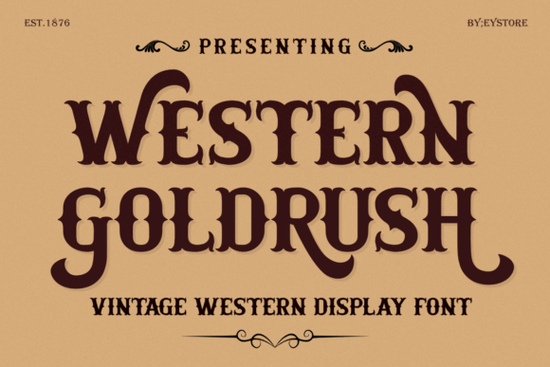
If you've been searching for a typeface that captures the spirit of the Old West, Western Goldrush is a bold vintage western display font that delivers exactly that. Inspired by classic cowboy typography, old saloon signage, and 19th-century American frontier aesthetics, it brings a rugged, masculine feel to any design. Whether you're working on a ranch logo, whiskey label, or retro poster, this font has the character to make your work stand out.
What Makes This Western Font Stand Out?
Western Goldrush features strong serif letterforms, decorative curves, dramatic swashes, and authentic western character details. It was designed to give a bold statement look without sacrificing readability something that's harder to find than you'd think in the display fonts category.
One thing worth noting: this font comes with multiple uppercase letter variations directly accessible without using alternate features. That means you don't need advanced software knowledge to switch between styles. It works smoothly in any design program, which is helpful if you're using basic tools or just getting started with custom typeface projects.
Who Is This Font Best For?
This typeface is a solid choice for a range of creatives and businesses:
- Barbershop and grooming brands looking for that classic masculine vibe
- Ranch and farm logos that need authentic western character
- Whiskey and craft beverage labels aiming for a vintage feel
- Saloon signage and themed events that want an old-west atmosphere
- Print-on-demand sellers creating western apparel and merchandise
- Tattoo artists looking for bold, readable western lettering
- Small businesses building a rustic or Americana brand identity
If you're a crafter or designer who works with vintage themes regularly, this is the kind of typeface you'll reach for again and again.
What Design Projects Work Well With This Typeface?
Western Goldrush is versatile across a range of western-themed projects. Here are some specific uses:
- Badge-style logos and emblems
- Headline typography for posters and flyers
- Vintage packaging and retro product labels
- Western apparel graphics for print-on-demand
- Social media graphics with a frontier or Americana theme
- Wedding invitations with a rustic western style
- Restaurant menus or event programs with a saloon aesthetic
It pairs well with simple sans-serif fonts for body text, keeping the focus on the bold display lettering. If you're building a full western brand identity, consider combining it with textures and rough backgrounds to enhance the vintage feel. A Chunky Texture Font can complement the look nicely for secondary text elements, and the bold rough typeface option works well for that layered effect.
How Does It Compare to Other Display Fonts?
The key difference with Western Goldrush is its authenticity. It doesn't just look "kind of western" it genuinely reflects the typographic style of 19th-century American frontier design, from the dramatic swashes to the strong serif structures.
How Do You Get the Best Results With This Font?
Here are some practical tips for working with this typeface:
- Use all caps for the best effect. This font was designed with uppercase display use in mind, so headlines and logos will look strongest in caps.
- Try different uppercase variations. Since multiple letter styles are built in, experiment with mixing them to create a more hand-crafted look.
- Give it room to breathe. Bold western fonts need generous spacing. Don't crowd the letters let those swashes and curves have space.
- Pair with the right background. Aged paper, wood grain, or leather textures really bring out the character of this typeface.
- Keep secondary text simple. Use a clean serif or sans-serif for body copy so the display font remains the focal point.
Is This Font Right for Your Next Project?
If your design needs that classic cowboy look with bold, readable letterforms, Western Goldrush is a reliable pick. It's especially useful if you create western-themed merchandise, rustic branding, or vintage-style posters. The easy access to multiple uppercase variations also makes it beginner-friendly, so you don't need to be an experienced typographer to get great results.
- ✓ Experiment with uppercase letter variations for a custom feel
- ✓ Test readability at the size you'll use for your final output